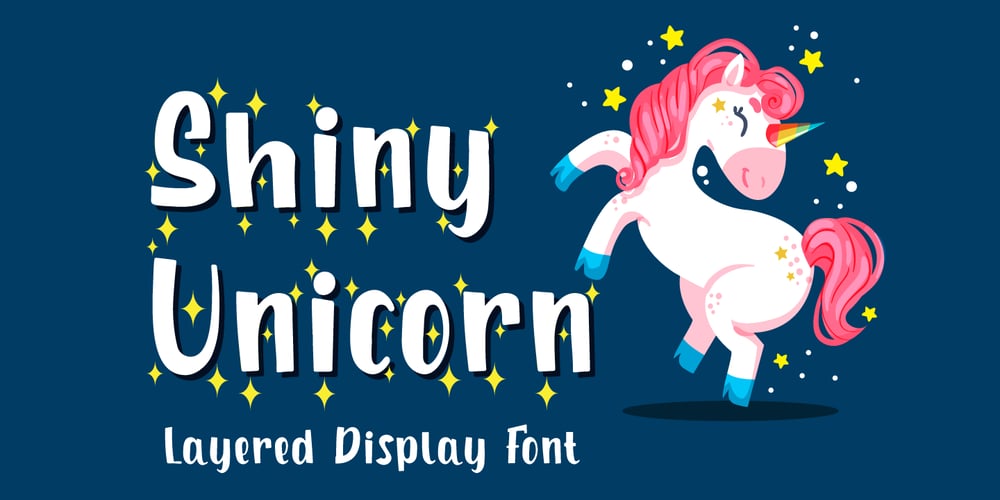
Shiny Unicorn Font Family was designed by Fadli Ramadhan Iskandar and published by Attype Studio. Shiny Unicorn contains 2 styles and family package options. Shiny Unicorn inspired by fairytail creature “Unicorn”. Comes with display font, this layered font make a special shiny effect for typography that you creates. Shiny Unicorn is perfect for branding, logo, invitation, stationery, social media post, product packaging, merchandise, blog design, game titles, cute style design, Book/Cover Title and more.Features :- Shiny Unicorn.otf- Shiny Unicorn Display.otf- Multilingual Support —Hope you enjoy with our font!Attype Studio